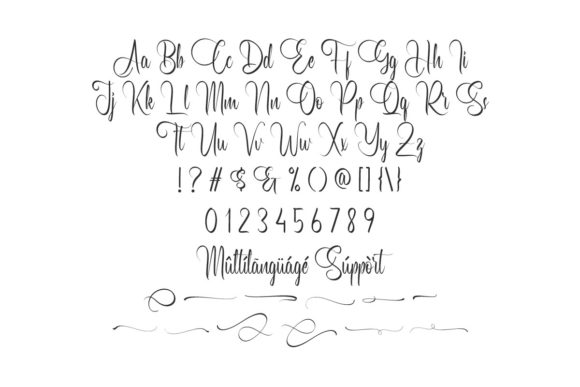
Carnallians Font
db-ku.com - Script & Handwritten -- Carnallians is a slim, luxurious and delicate script font. This font is PUA encoded which means you can access all of the glyphs and swashes with ease!